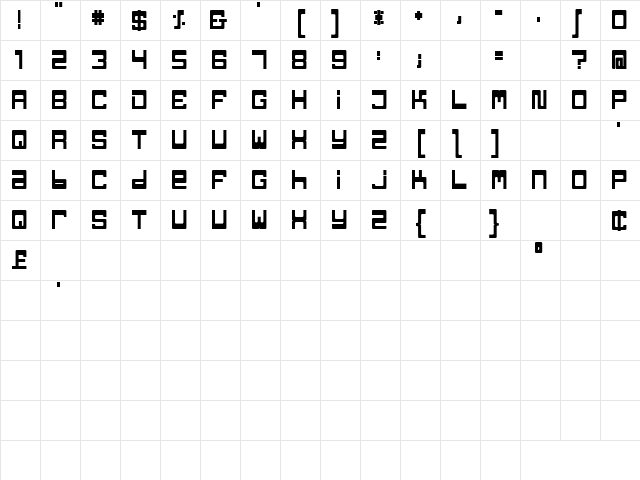
TPF Jaib Bold Free Font
TPF Jaib Bold
TPF Jaib Family
Design Context for TPF Jaib
TPF Jaib is a composed and adaptable typeface that performs quietly and consistently across a wide range of design contexts. Its bold stroke weight gives it real presence on the page.